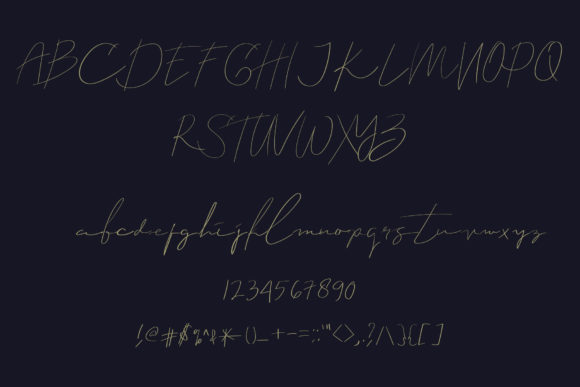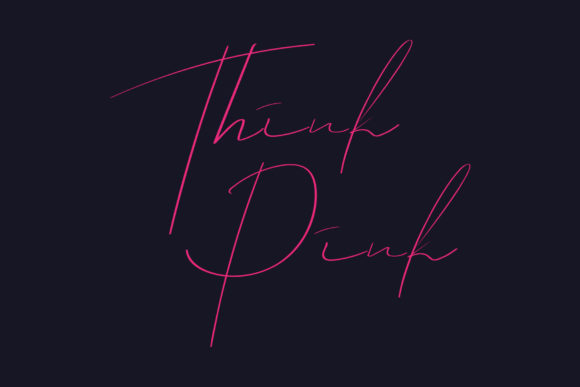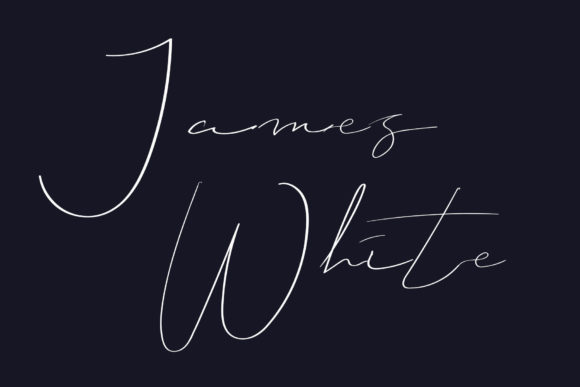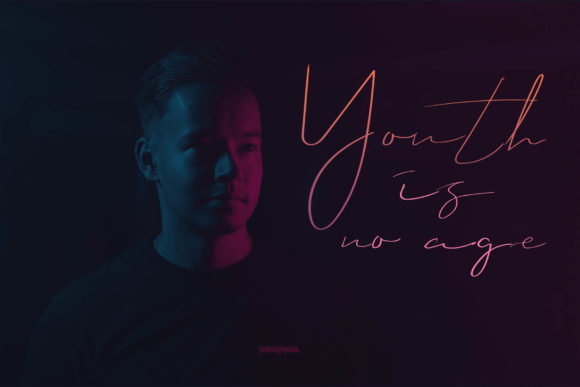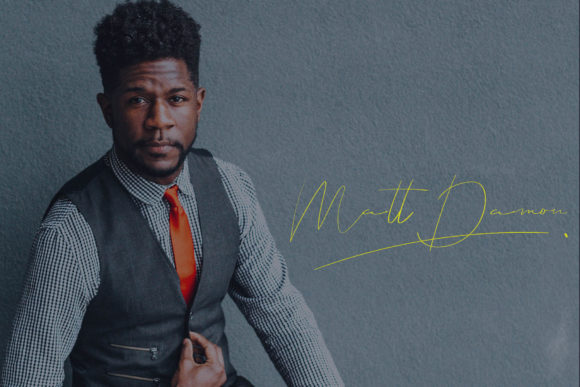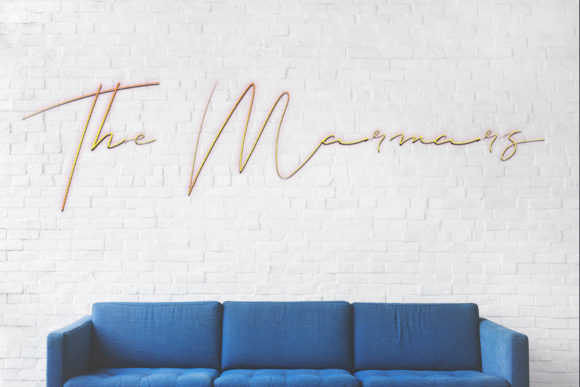
Callous Font
About Callous Font
The Callous is an elegant typeface. It has an unique and authentic touch which makes it perfect for logos, banners, posters, or even for signature designs!